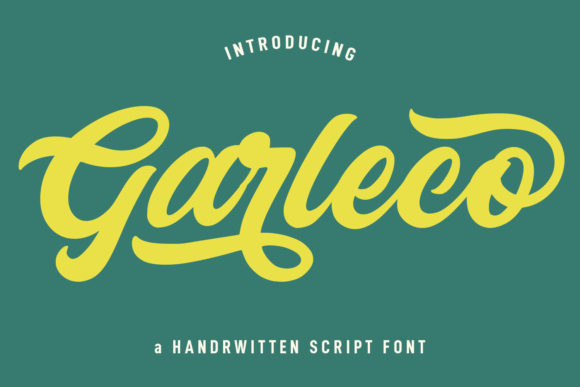
Dive into the world of Garleco, an exquisite script font family that exudes retro charm and captivating boldness. Crafted with meticulous care, Garleco promises to transform your design projects into masterpieces of elegance and sophistication.
Picture this: a wedding invitation adorned with Garleco's graceful strokes, whispering the names of the bride and groom in a symphony of timeless romance. Or, envision a logo infused with Garleco's bold personality, making an unforgettable statement that commands attention.
With Garleco, your messages will sing with a charm that resonates with the hearts of your audience. Its retro aesthetic evokes a sense of nostalgia, while its bold strokes add a touch of modern flair. The result is a font that is both timeless and contemporary, capturing the essence of classic elegance with a dash of youthful energy.
But Garleco's versatility doesn't end there. This remarkable font family seamlessly adapts to a myriad of design needs. Whether you're crafting logos, branding materials, or even handwritten notes, Garleco effortlessly elevates your designs, adding a touch of sophistication and charm.
Join the creative revolution and harness the power of Garleco. Let its retro elegance and bold strokes transform your designs into works of art that captivate and inspire. Unleash your creativity and allow Garleco to weave its magic, leaving a lasting impression on all who behold it.